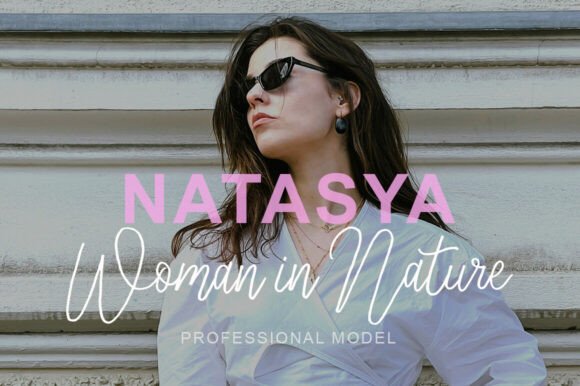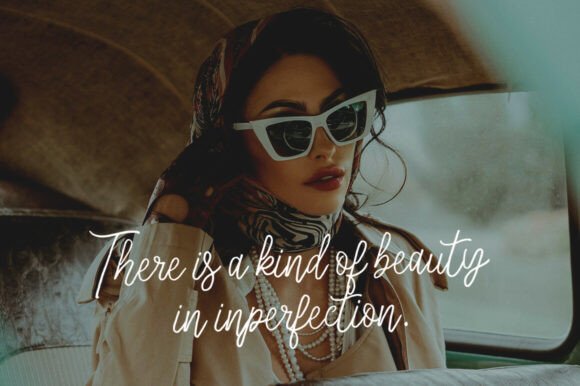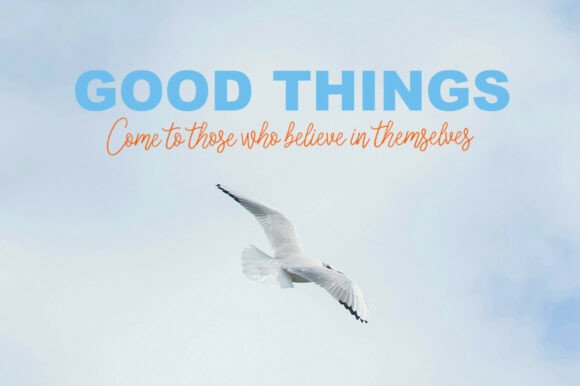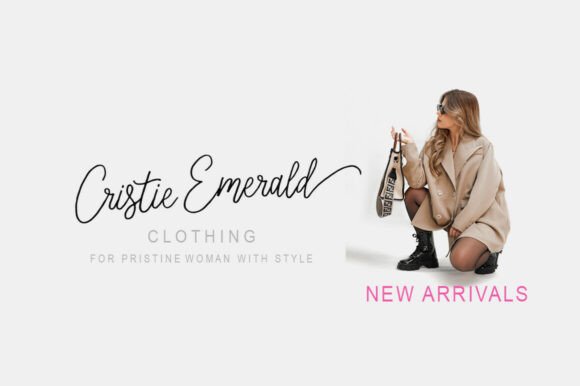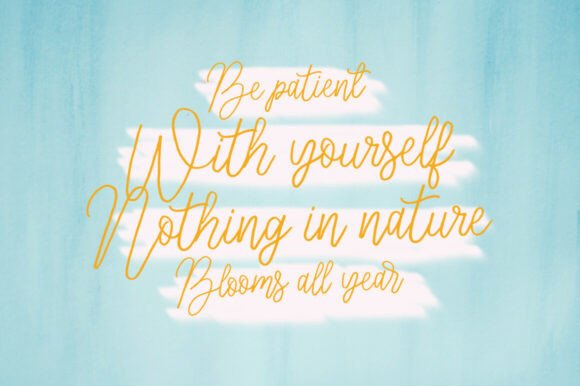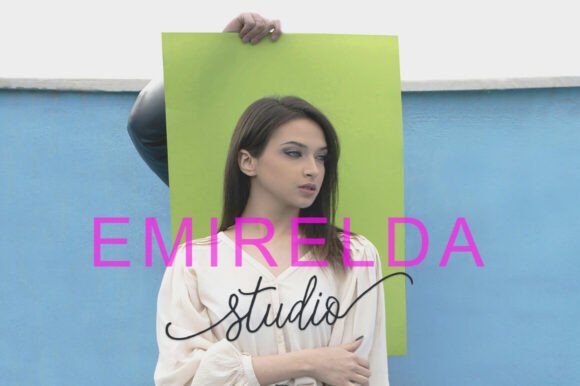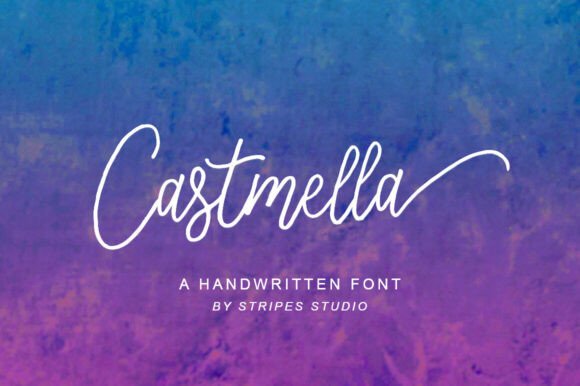
Discover the Elegance of Castmella Font: A Delicate Handwritten Masterpiece
Are you a designer or crafter looking for a font that exudes elegance and sophistication? Look no further than Castmella Font, a delicate and handwritten font that is sure to capture your heart. With its distinct and well-balanced letters, Castmella is a masterpiece that can elevate your designs to new heights.
The Unique Charm of Castmella Font
Castmella Font is a beautifully crafted handwritten font that boasts a unique charm. Its delicate strokes and elegant letterforms make it perfect for a wide range of design projects, from wedding invitations and branding materials to packaging and digital media. The font’s versatility is one of its standout features, allowing you to use it in various contexts and still achieve stunning results.
Key Features of Castmella Font
- Delicate and Elegant: Castmella Font features delicate strokes and elegant letterforms that give it a sophisticated look.
- Handwritten with Love: The font’s handwritten nature gives it a personal touch, making it perfect for designs that require a human feel.
- Distinct and Well-Balanced Letters: Each letter in Castmella Font is carefully crafted to ensure that the font is easy to read and visually appealing.
- Incredibly Versatile: Castmella Font can be used in a variety of design projects, from print materials to digital media.
Why Designers and Crafters Love Castmella Font
Designers and crafters love Castmella Font for its ability to add a touch of elegance and sophistication to their designs. Whether you’re creating a wedding invitation, a brand identity, or a social media graphic, Castmella Font can help you achieve your design goals. Its unique charm and versatility make it a valuable addition to any designer’s or crafter’s font collection.
Tips for Using Castmella Font Effectively
To get the most out of Castmella Font, here are some tips to keep in mind:
- Pair it with Other Fonts: Castmella Font pairs well with other fonts, especially sans-serif fonts. Experiment with different font combinations to find the perfect match for your design.
- Use it for Headings and Titles: Castmella Font is perfect for headings and titles, where its elegant and delicate strokes can shine.
- Experiment with Colors: Castmella Font looks great in a variety of colors, from soft pastels to rich jewel tones. Experiment with different colors to find the perfect match for your design.
In conclusion, Castmella Font is a delicate and elegant handwritten font that is sure to capture your heart. Its distinct and well-balanced letters make it a masterpiece that can elevate your designs to new heights. With its incredibly versatile style, Castmella Font is perfect for designers and crafters who want to add a touch of elegance and sophistication to their designs. So why wait? Fall in love with Castmella Font and use it to create spectacular designs that will leave a lasting impression.